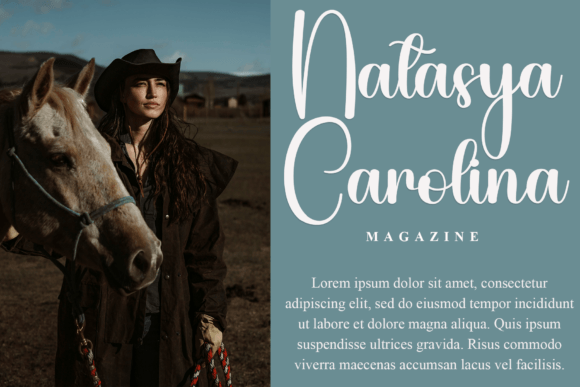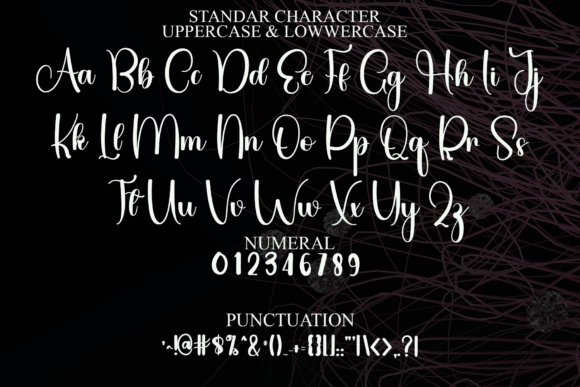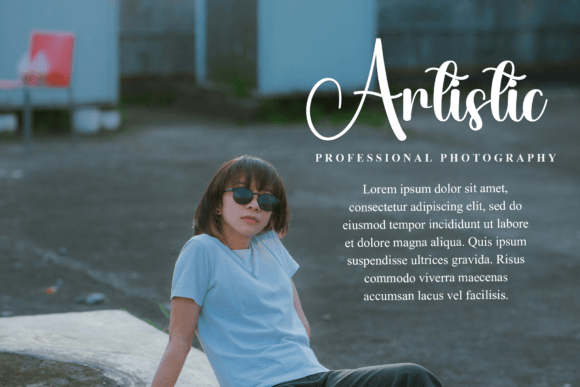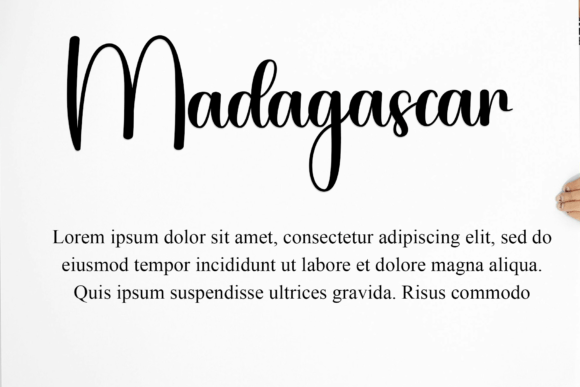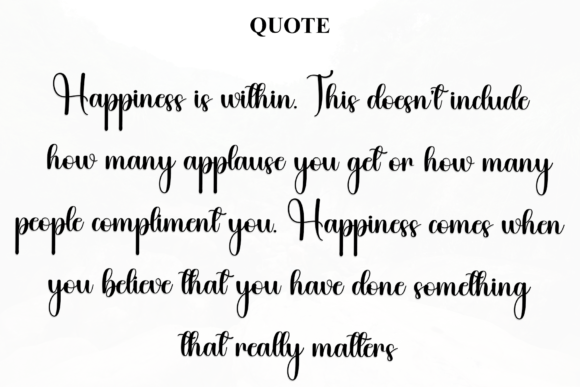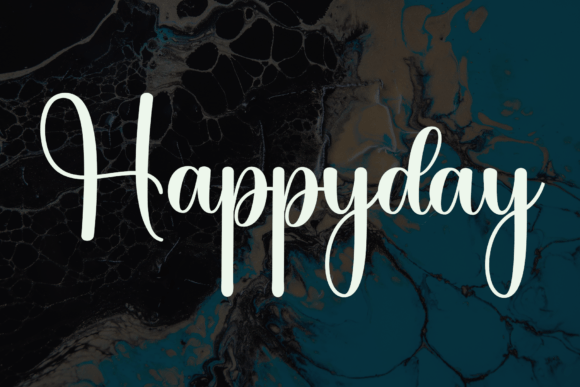
Introducing Authentic Signature Font: Elevate Your Designs with Elegance
Are you on the hunt for a font that exudes sophistication, elegance, and a touch of modern flair? Look no further than the Authentic Signature Font. This stunning handwritten font is designed to transform your designs, whether they’re for logos, branding, invitations, or social media posts, into visually captivating masterpieces. With its refined appearance and versatility, Authentic Signature is poised to become your go-to choice for a wide array of creative projects.
A Classy, Elegant, and Modern Aesthetic
The Authentic Signature Font boasts a classy, elegant, and distinctly modern look that sets it apart from more generic fonts. Its carefully crafted letters and flowing connections give it a natural, handwritten feel that’s both approachable and sophisticated. This balance of elegance and modernity makes it an ideal choice for designers and crafters looking to add a personal touch to their work without sacrificing professionalism.
One of the key advantages of the Authentic Signature Font is its incredible versatility. It’s perfect for a wide range of applications, including:
- Logos and Branding: Create a memorable brand identity with a logo that stands out. The elegant and modern look of Authentic Signature ensures your brand makes a lasting impression.
- Invitations and Stationery: Whether it’s a wedding invitation, a birthday party invite, or custom stationery, this font adds a touch of sophistication and personal warmth.
- Wedding Designs: From wedding invitations to ceremony programs and thank-you cards, Authentic Signature lends a romantic and refined feel to your wedding designs.
- Social Media Posts: Elevate your social media content with stylish text overlays, quotes, and announcements that capture your audience’s attention.
What sets the Authentic Signature Font apart from many other fonts is its PUA (Private Use Area) encoding. This feature allows you to access a wide range of glyphs and ligatures easily, offering you greater creative flexibility. With PUA encoding, you can:
- Access a variety of swashes and alternate characters to customize your text.
- Use ligatures to create smooth, flowing connections between letters, enhancing the natural look of your text.
- Insert special characters and glyphs to add unique touches to your designs.
Why Choose Authentic Signature Font?
With so many fonts available, why should Authentic Signature be your top choice? Here are a few compelling reasons:
- Unique Aesthetic: Its distinctive blend of elegance and modernity ensures your designs stand out.
- Versatility: Suitable for a wide range of projects, from professional branding to personal invitations.
- User-Friendly: PUA encoding makes it easy to access and use the font’s advanced features, even for those with limited design experience.
- High Quality: Professionally crafted with attention to detail, ensuring crisp and clear appearance in any size.
The Authentic Signature Font is more than just a font – it’s a design solution that can elevate your creative projects to new heights. Its elegant and modern aesthetic, combined with its versatility and user-friendly features, make it an indispensable tool for designers and crafters alike. Whether you’re looking to create stunning logos, beautiful invitations, or captivating social media content, Authentic Signature is the perfect choice. Discover the difference it can make in your designs today.